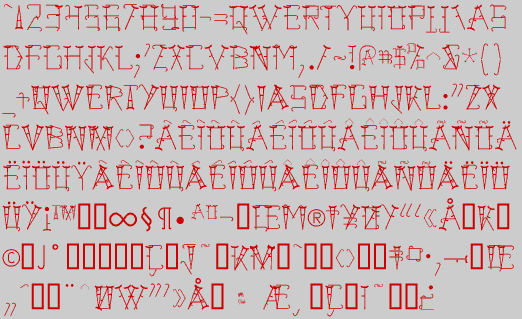
A novelty font is an extreme form of display font. Often it has letters that are made of recognizable elements, such as safety pins, knives and forks, or umbrellas. Novelty fonts should be used in extreme moderation if they are used at all.
Its name, CrippledFont, might lead you to think that this font was missing important characters. It is not. Rather it is a novelty font made up from pictures of crutches and canes.